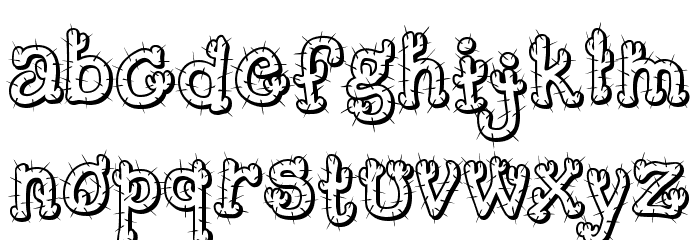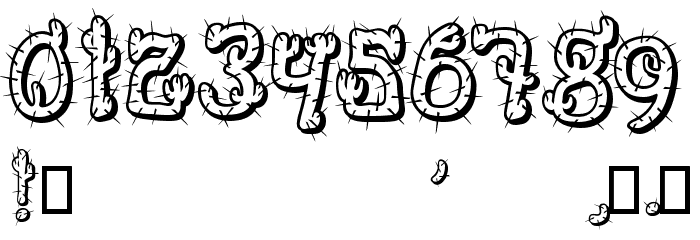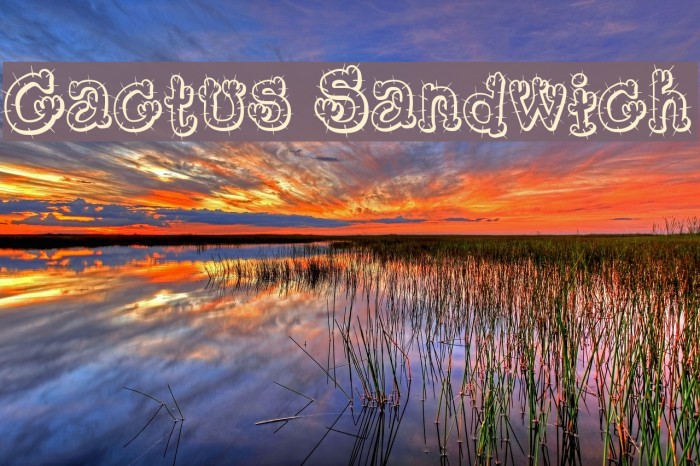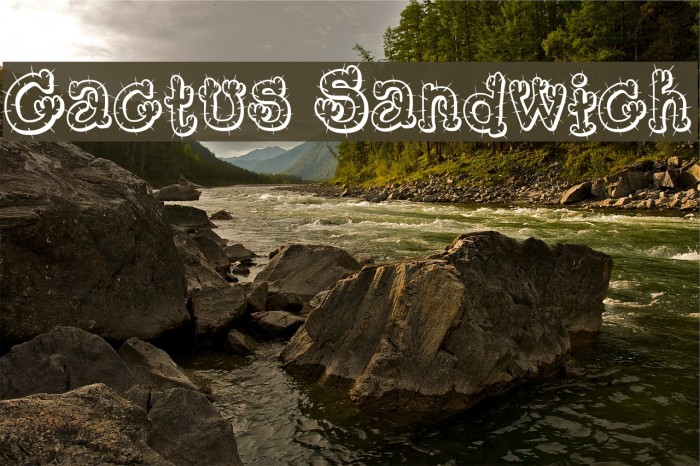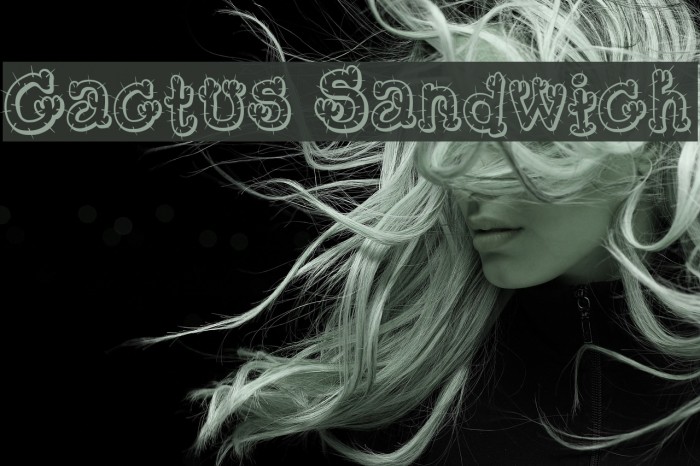
Cactus Sandwich Font
This font features a unique and playful design, with each character adorned with cactus-like spines that give it a distinct, textured appearance. The letters are bold and rounded, with a whimsical touch that makes them stand out. The spines add an element of fun and creativity, making this font ideal for projects that require a quirky and eye-catching style. The overall look is both decorative and engaging, perfect for capturing attention in a variety of settings.
A playful, cactus-themed font with spiny, decorative characters.
- Proposed Projects: Ideal for children's book covers, themed party invitations, playful branding, and decorative posters.